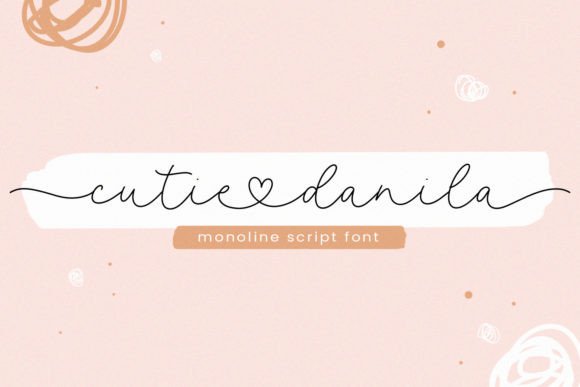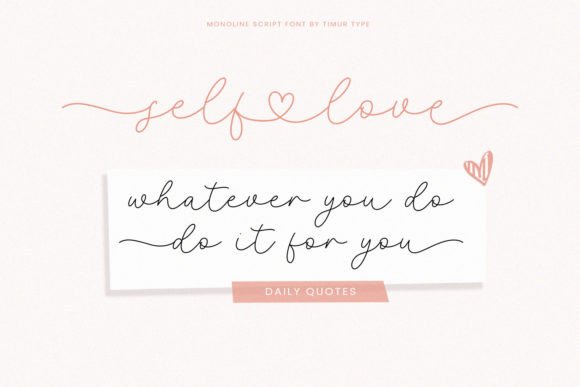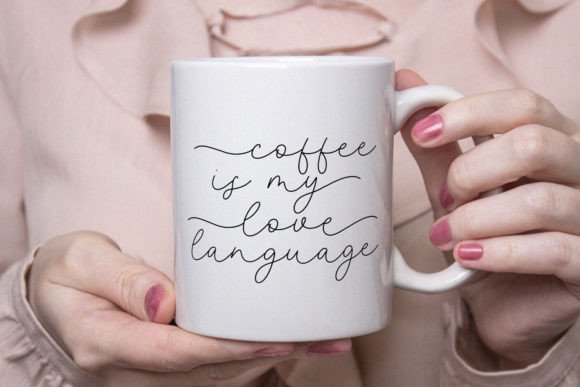
About Cutie Danila Font
The Cutie Danila Font Download is a stylish handwritten script typeface that combines modern freshness with warmth. Designed to bring a welcoming and inviting feel, this font is a perfect choice for creative professionals and brands that want to add a personal touch to their designs. With its smooth strokes and natural flow, Cutie Danila captures attention while maintaining elegance and readability.
Whether you’re designing for business or personal use, this handwritten font helps you create projects that feel both approachable and memorable. It’s versatile enough to adapt to multiple design themes, from luxury branding to playful invitations.
Features of Cutie Danila Font
The Cutie Danila Font Download offers several unique features that make it stand out:
Modern handwritten script style with fresh aesthetics
Warm and inviting look that connects with audiences
Perfect balance of elegance and readability
Versatile use across print, packaging, and digital projects
Best Uses for Cutie Danila Font
This font was designed with flexibility in mind, making the Cutie Danila Font Download suitable for a variety of creative needs. Some of the most popular uses include:
Product packaging – Create labels, tags, and wrapping with personality
Branding projects – Build stylish logos and business identities
Weddings and events – Perfect for invitations, menus, and décor
Magazines and editorials – Add elegance to headlines and layouts
Social media graphics – Elevate posts with a modern handwritten touch
Print designs – From greeting cards to posters, add charm with ease
Why Choose Cutie Danila Font
The Cutie Danila Font Download is more than just a handwritten script; it’s a design tool that communicates creativity and warmth. Its smooth, organic curves create a natural flow that looks professional yet approachable. Unlike many fonts that may feel too formal or overly casual, Cutie Danila strikes the right balance, making it highly versatile for different design purposes.
By choosing this font, you’re ensuring your projects carry a personal and authentic look. It works beautifully across both minimalist designs and more themes, giving you freedom to explore a wide range of creative ideas.
The Cutie Danila Font Download is a modern and fresh script that adds warmth, elegance, and style to any project. Whether you’re working on branding, packaging, weddings, or digital content, this font ensures your work stands out with a unique and touch.